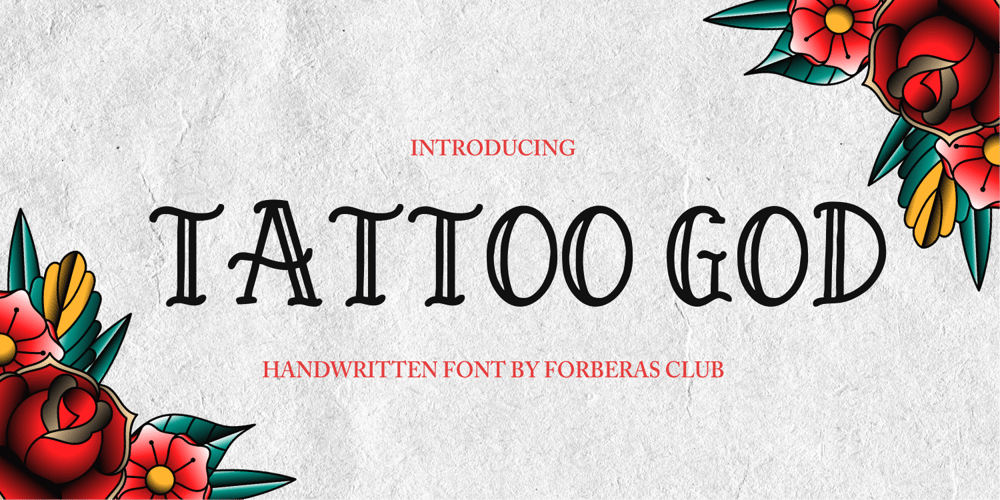
Tattoo God
Tattoo God font
Tattoo God Font Family was designed by ANGGI HERMAWAN and published by Forberas Club. Tattoo God contains 1 styles and family package options. Tattoo God font is good to application for tattoo artist logo, vintage style, and black letter style and many more.